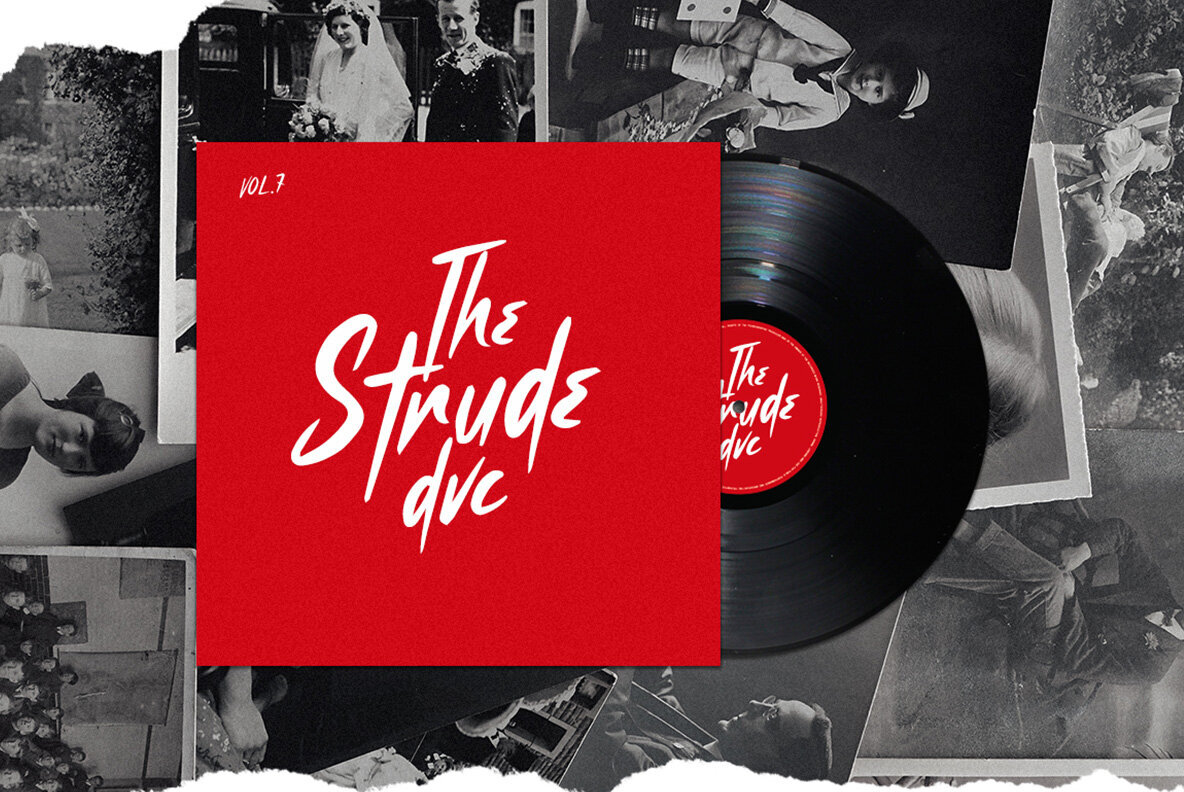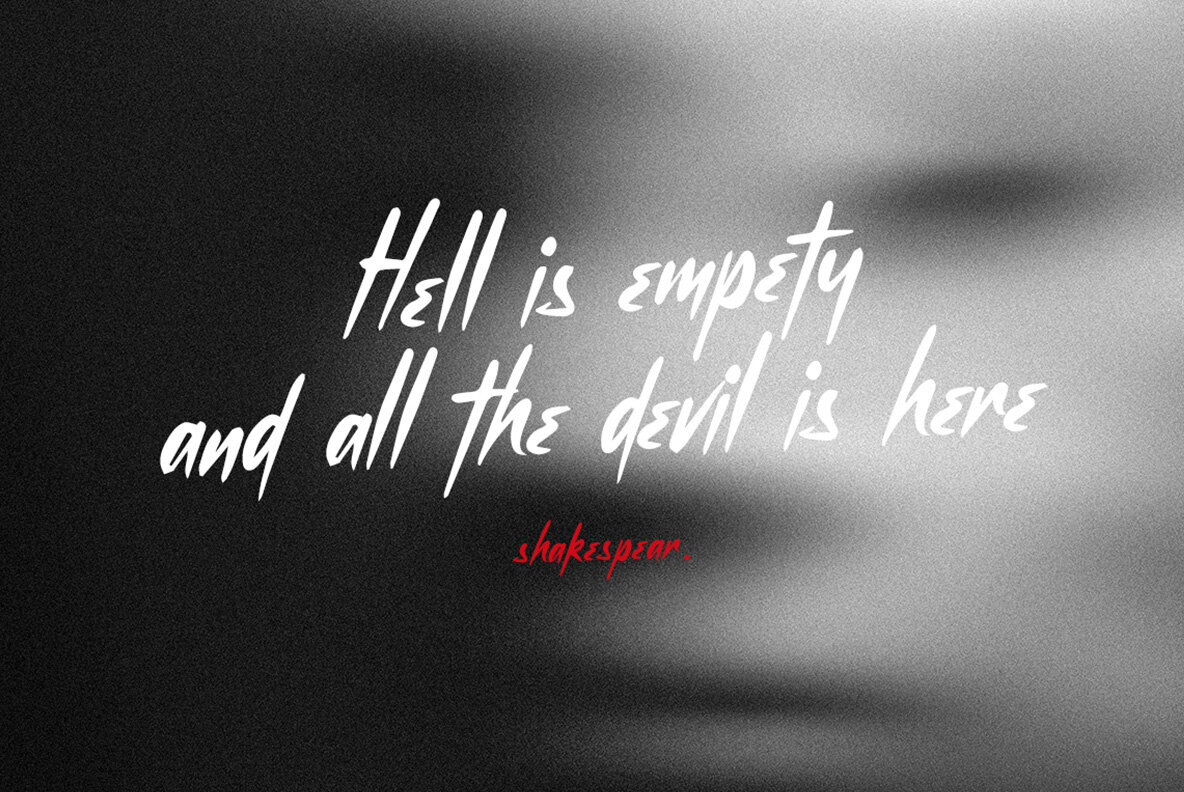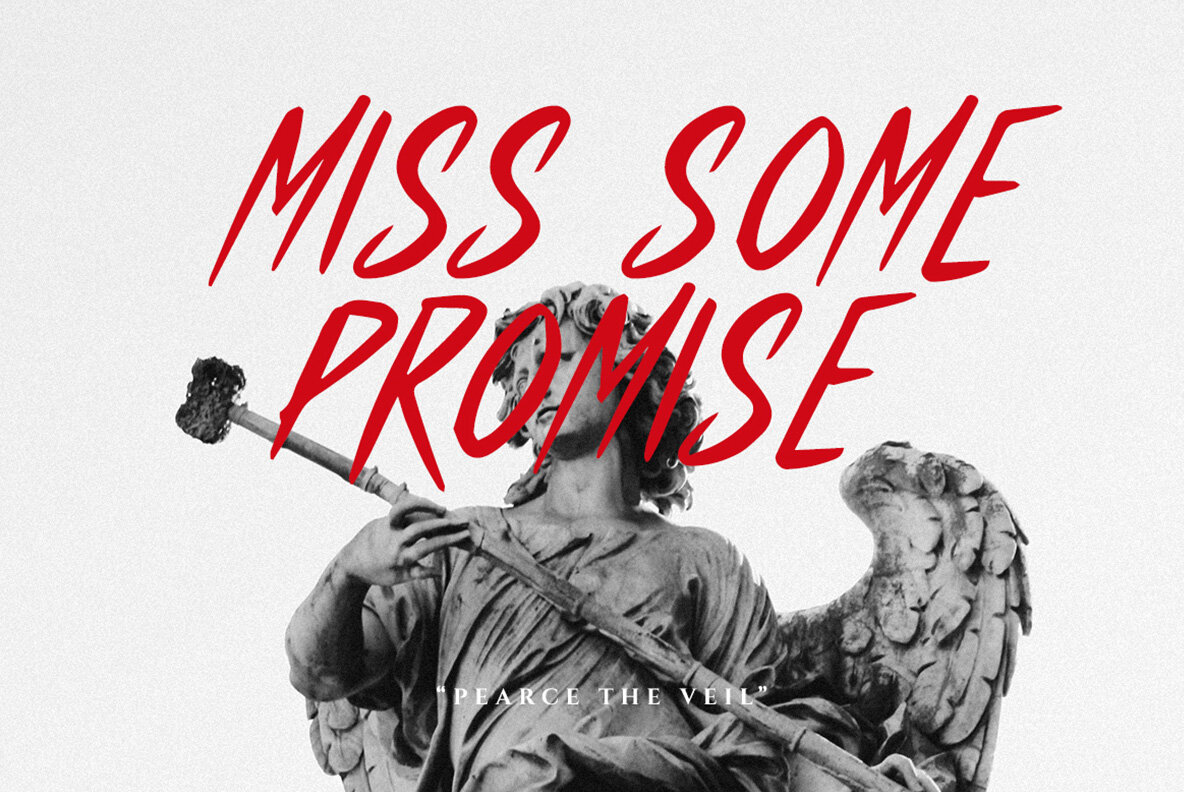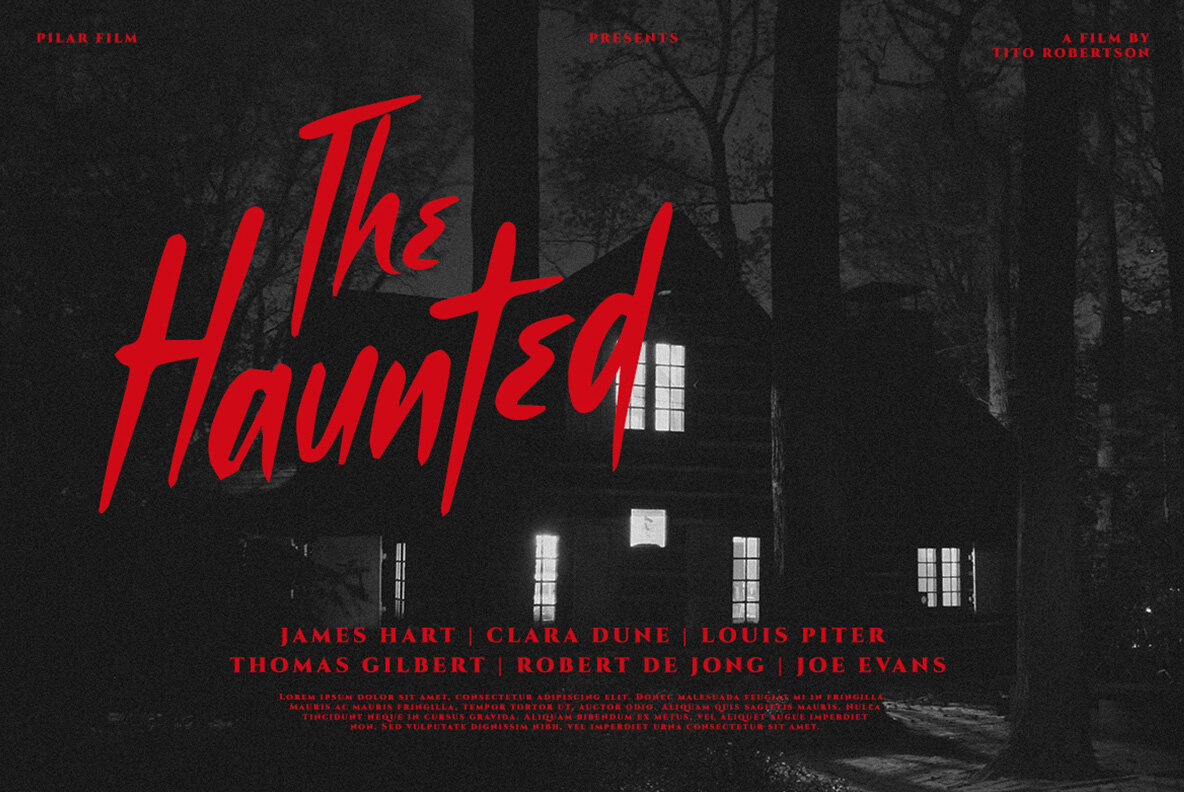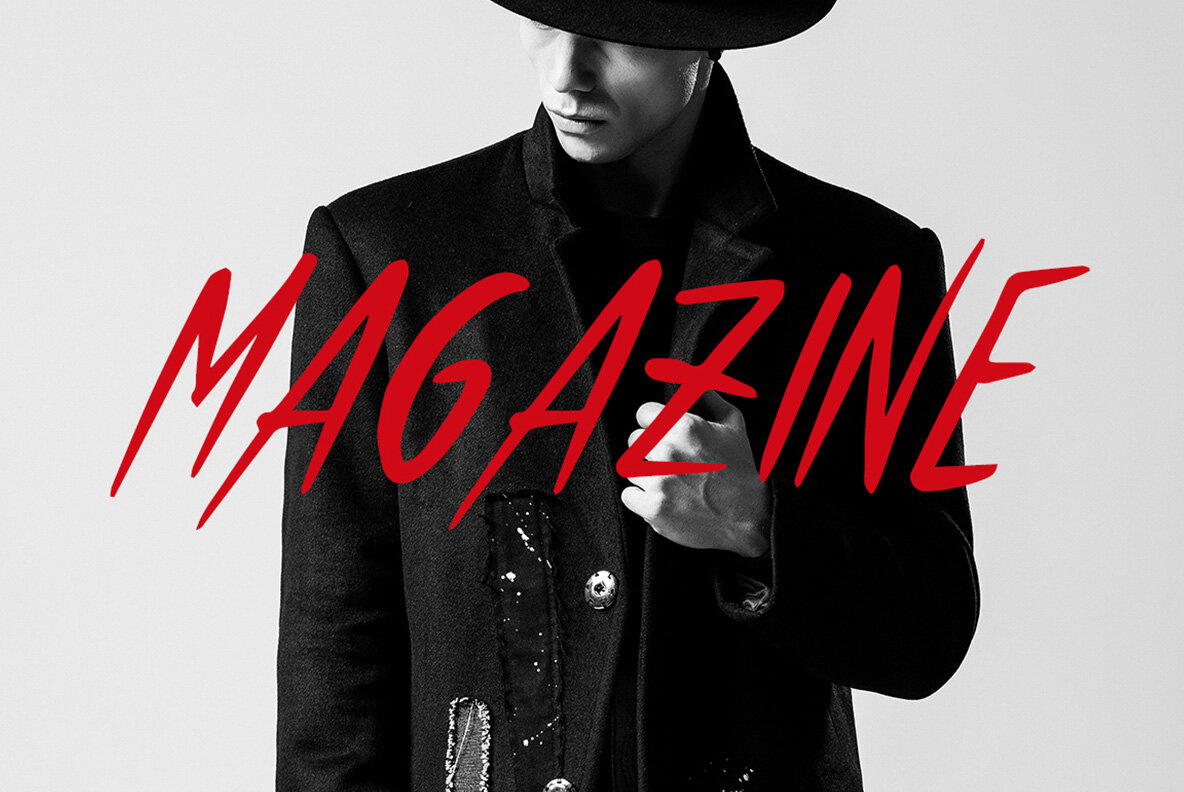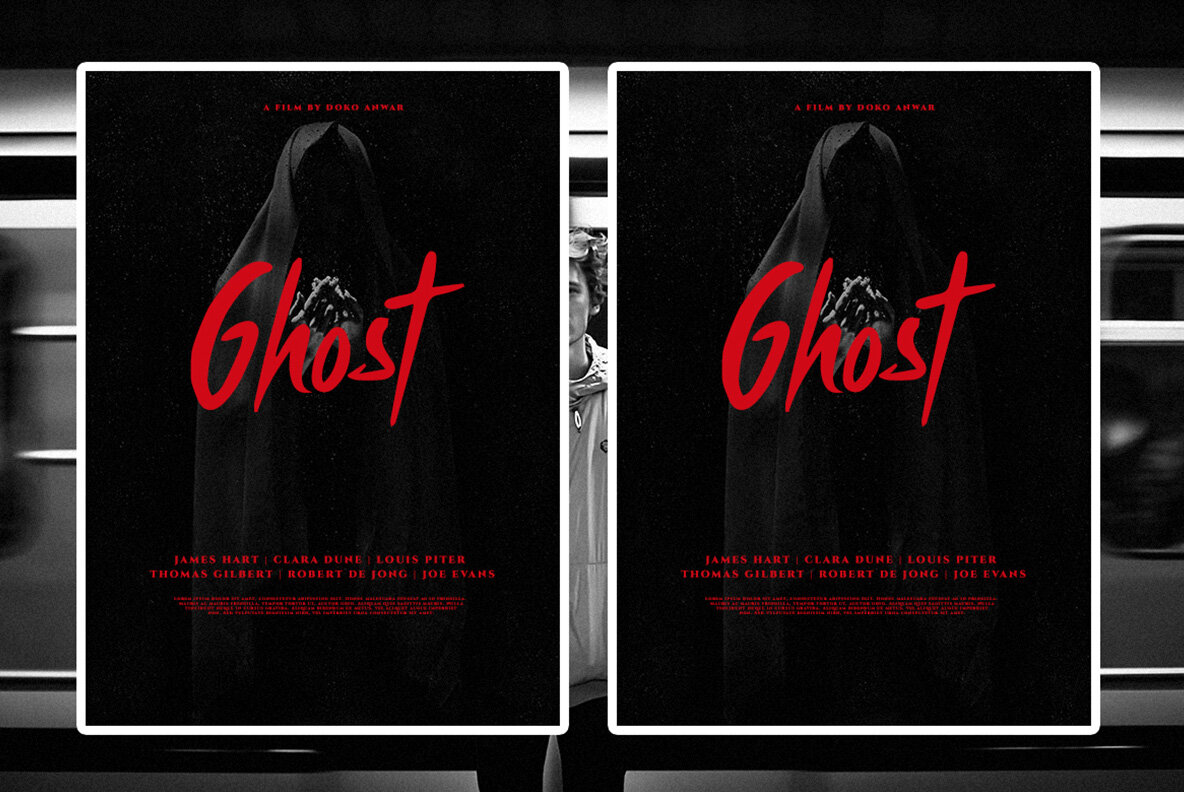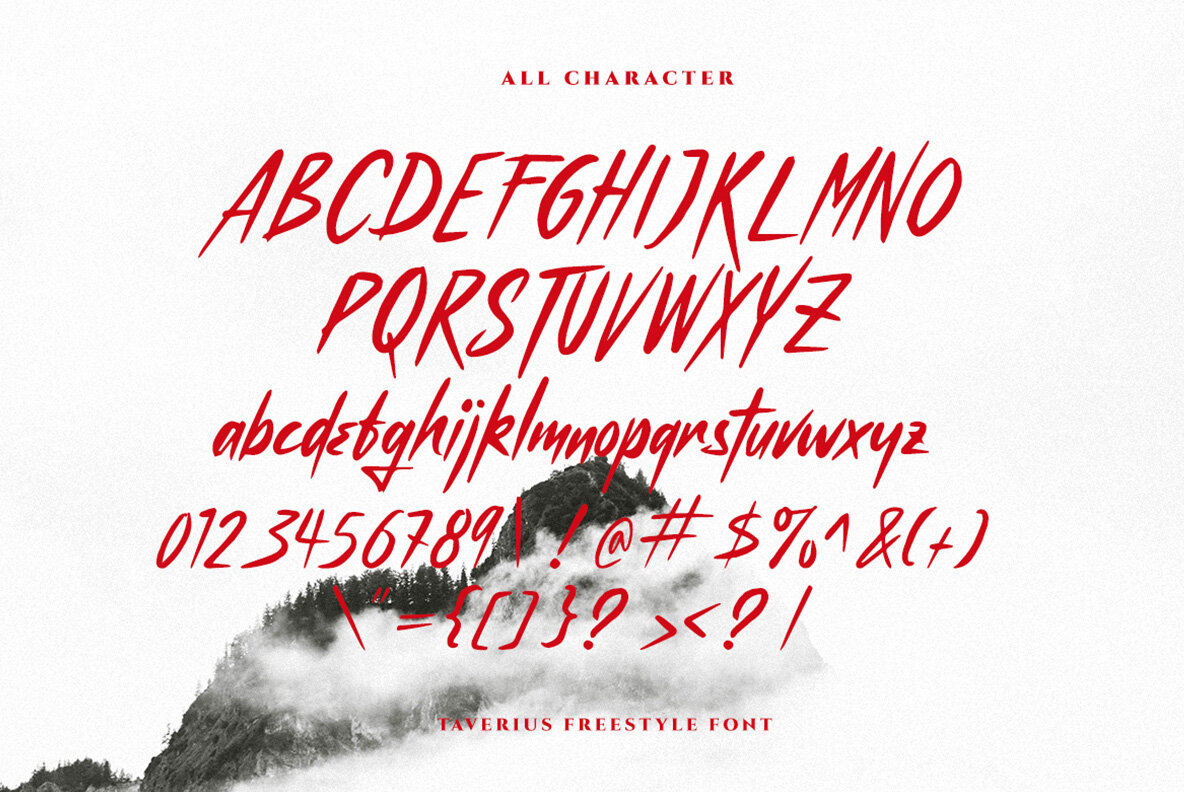
Taverius Font
Taverius Regular
Taverius by Letterhend Studio is a striking typeface blending hand-drawn charm with freestyle form. Designed for use in headlines, displays, logos, and signatures, it serves an array of formal and creative applications. Whether crafting invitations, creating distinctive labels, or designing magazine and book covers, Taverius adds a personal touch to any project. Its suitability extends to greeting and wedding cards, fashion and makeup branding, stationery, novels, and various advertising platforms. For an optimal experience, use programs that support OpenType features and Glyphs panels, such as Adobe applications and Corel Draw. For detailed guidance, visit Taverius: A Hand-Drawn Typeface for Impactful Design